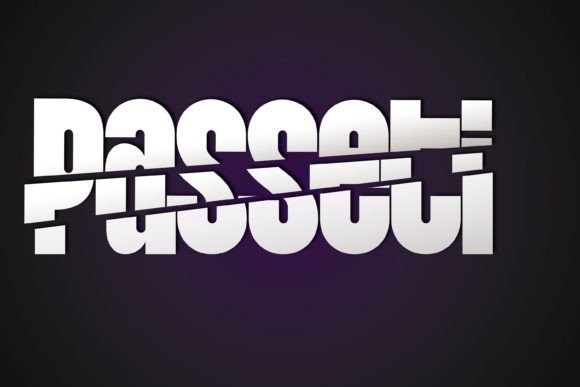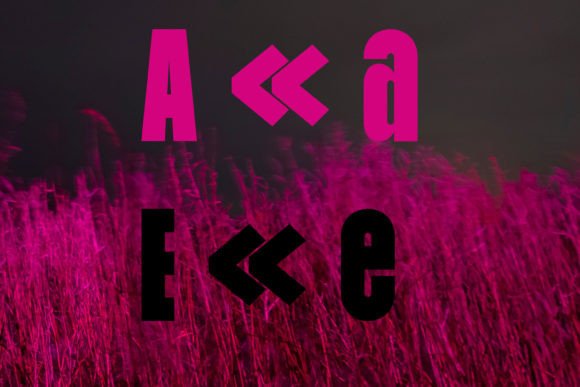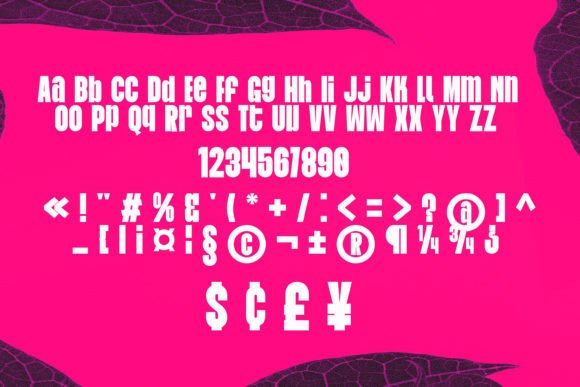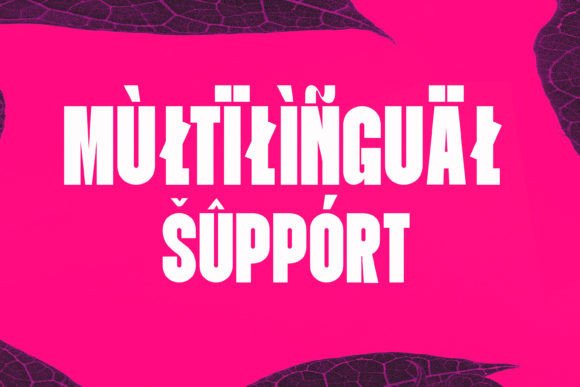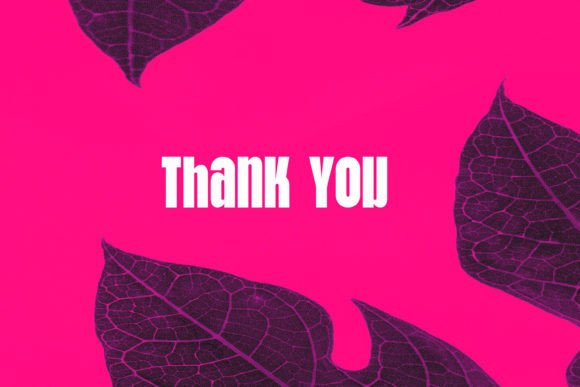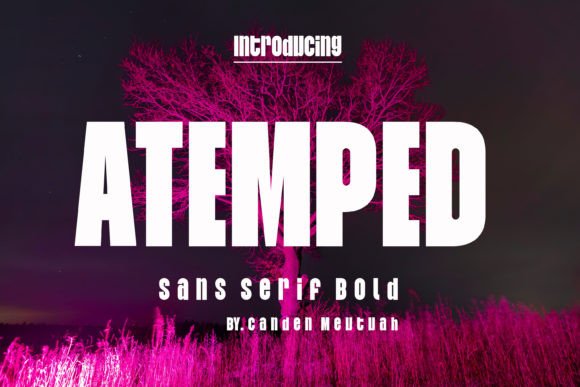
Introducing Atemped Font: Elevate Your Designs with Modern Elegance
In the world of typography, a font can make or break a design. For designers and crafters looking for a modern and classy style, Atemped Font is an excellent choice. This modern sans serif font is packaged with a sleek and sophisticated aesthetic, complete with access to OpenType features that offer a wide range of alternative letters and ligatures.
What is Atemped Font?
Atemped Font is a contemporary sans serif font designed to bring a touch of elegance to various design projects. Its clean lines, precise curves, and carefully crafted letterforms make it perfect for a wide range of applications. Whether you’re working on branding projects, logo design, clothing branding, packaging, magazine titles, advertisements, or social media graphics, Atemped Font is an excellent choice.
Key Features of Atemped Font
- Modern Sans Serif Design: Atemped Font boasts a sleek and modern sans serif design that is both clean and elegant.
- OpenType Features: With access to OpenType features, you can easily access a large selection of alternative letters and ligatures to add a unique touch to your designs.
- High Versatility: Atemped Font is perfect for a wide range of design projects, from branding and logo design to packaging, magazine titles, and more.
- Classy Style: The font’s classy style makes it ideal for designs that require a touch of sophistication and elegance.
Use Cases for Atemped Font
Atemped Font is an incredibly versatile font that can be used in various design projects. Here are some examples of how you can use Atemped Font:
- Branding Projects: Create a lasting impression with Atemped Font’s modern and classy style, perfect for branding projects that require a touch of elegance.
- Logo Design: Design a memorable logo with Atemped Font’s clean lines and precise curves that will help your brand stand out.
- Clothing Branding: Elevate your clothing brand with Atemped Font’s stylish and sophisticated aesthetic.
- Packaging: Add a touch of elegance to your product packaging with Atemped Font’s modern sans serif design.
- Magazine Titles: Create eye-catching magazine titles with Atemped Font’s bold and classy style.
- Advertisements: Use Atemped Font to create stunning advertisements that grab attention and convey a sense of sophistication.
- T-Shirts: Design stylish and modern t-shirts with Atemped Font’s clean and elegant aesthetic.
- Postcards: Create beautiful postcards with Atemped Font’s classy style that will make your designs stand out.
- Editorials: Use Atemped Font to add a touch of elegance to your editorials and make them more engaging.
- Magazine Headlines: Create bold and eye-catching magazine headlines with Atemped Font’s modern sans serif design.
- Product Packaging: Elevate your product packaging with Atemped Font’s stylish and sophisticated aesthetic.
Why Choose Atemped Font?
With so many fonts available, why choose Atemped Font? Here are a few reasons why Atemped Font stands out:
- Unique Design: Atemped Font’s modern sans serif design is both clean and elegant, making it perfect for designs that require a touch of sophistication.
- Highly Versatile: Atemped Font can be used in a wide range of design projects, making it a great addition to any designer’s toolkit.
- Easy to Use: With access to OpenType features, you can easily access a large selection of alternative letters and ligatures to add a unique touch to your designs.
In conclusion, Atemped Font is an excellent choice for designers and crafters looking for a modern and classy font to elevate their designs. With its clean lines, precise curves, and carefully crafted letterforms, Atemped Font is perfect for a wide range of design projects. Its highly versatile and easy to use, making it a great addition to any designer’s toolkit.